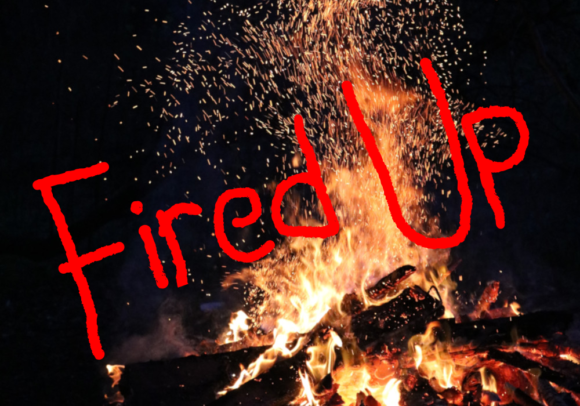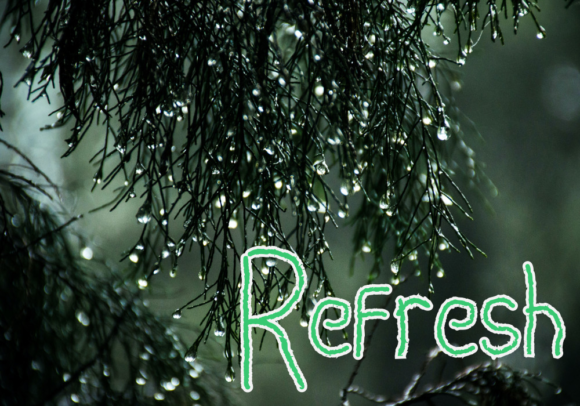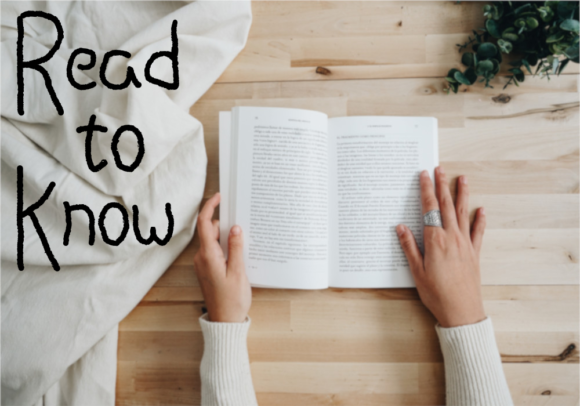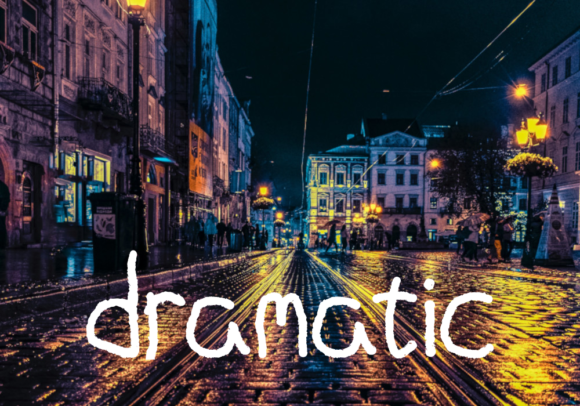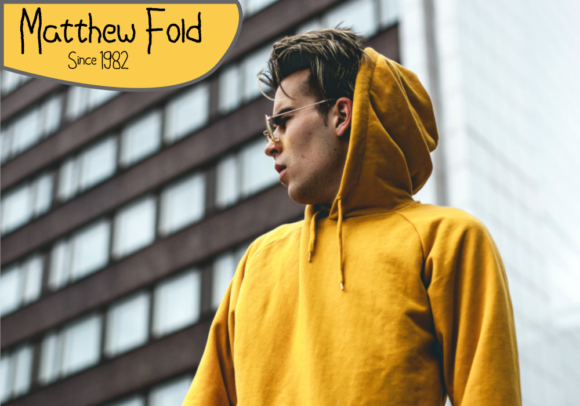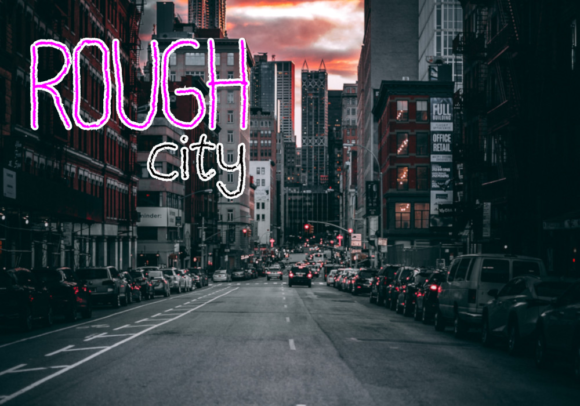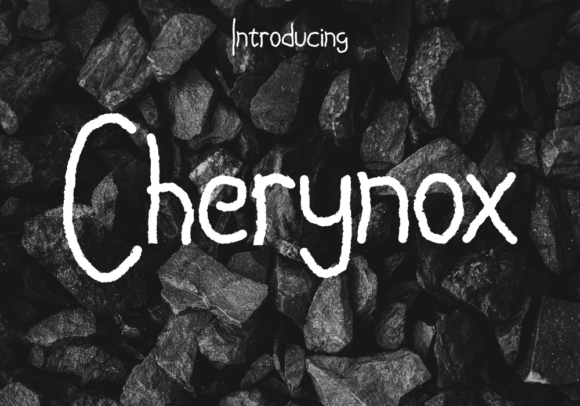
Cherynox Font: The Ultimate Display Font for Your Design Needs
Are you tired of using the same old fonts in your design projects? Look no further than Cherynox Font, a cool, simple, and adaptable display font that’s perfect for adding a fun and friendly touch to your work. In this article, we’ll dive into the world of Cherynox Font and explore its features, benefits, and uses.
What is Cherynox Font?
Cherynox Font is a modern display font designed to make your designs stand out. Its simple yet stylish design makes it perfect for a wide range of projects, from posters and flyers to social media graphics and website headers. With its clean lines and friendly vibe, Cherynox Font is sure to capture the attention of your audience and leave a lasting impression.
Key Features of Cherynox Font
- Cool and Simple Design: Cherynox Font boasts a sleek and modern design that’s both cool and simple. Its clean lines and minimalist aesthetic make it perfect for designers who want to add a touch of sophistication to their work.
- Adaptable: One of the standout features of Cherynox Font is its adaptability. Whether you’re working on a poster, flyer, or social media graphic, this font will look great and add a fun and friendly touch to your design.
- Highly Versatile: Cherynox Font is highly versatile and can be used in a wide range of design projects, from print materials to digital graphics.
- Easy to Read: Despite its stylish design, Cherynox Font is easy to read, making it perfect for use in body text as well as headlines.
Benefits of Using Cherynox Font
So why should you choose Cherynox Font for your design projects? Here are just a few benefits of using this amazing font:
- Adds a Fun and Friendly Touch: Cherynox Font is designed to add a fun and friendly touch to your designs. Its playful vibe makes it perfect for projects that require a lighthearted and approachable feel.
- Perfect for Display Text: Cherynox Font is specifically designed for display text, making it perfect for use in headlines, titles, and other prominent text elements.
- Great for Branding and Marketing Materials: If you’re looking for a font that will help your brand stand out, Cherynox Font is a great choice. Its unique design makes it perfect for use in branding and marketing materials, such as logos, brochures, and business cards.
How to Use Cherynox Font in Your Designs
Using Cherynox Font in your designs is easy. Here are a few tips to get you started:
- Pair it with Other Fonts: Cherynox Font pairs well with a wide range of other fonts, making it easy to create visually appealing combinations.
- Use it for Headlines and Titles: Cherynox Font is perfect for use in headlines and titles, where its bold and playful design can really shine.
- Experiment with Different Colors: Cherynox Font looks great in a wide range of colors, so don’t be afraid to experiment and find the perfect hue for your design.
Cherynox Font in the World of Design
Cherynox Font is more than just a font – it’s a design tool that can help you create amazing projects. Whether you’re a professional designer or a crafty DIY enthusiast, Cherynox Font is a great addition to your toolkit.
In the world of design, fonts play a crucial role in communicating messages and evoking emotions. Cherynox Font is designed to help you create designs that are not only visually appealing but also engaging and effective.
From graphic designers and marketers to crafters and DIY enthusiasts, Cherynox Font is perfect for anyone looking to add a fun and friendly touch to their designs.
| Author | Cocoriscranjy |
In conclusion, Cherynox Font is an amazing display font that’s perfect for designers and crafters who want to add a fun and friendly touch to their work. Its cool and simple design, adaptability, and high versatility make it a great choice for a wide range of design projects.
Whether you’re working on a professional design project or a personal craft project, Cherynox Font is sure to impress. So why not give it a try and see the difference it can make in your designs?